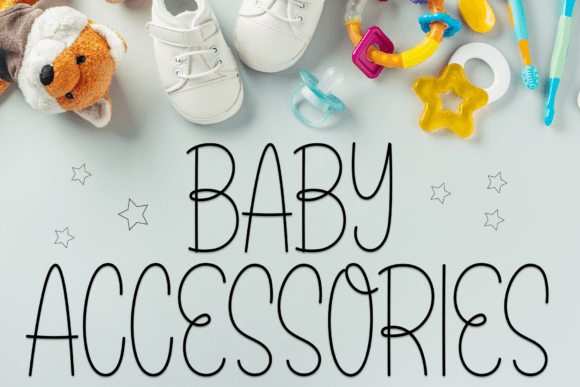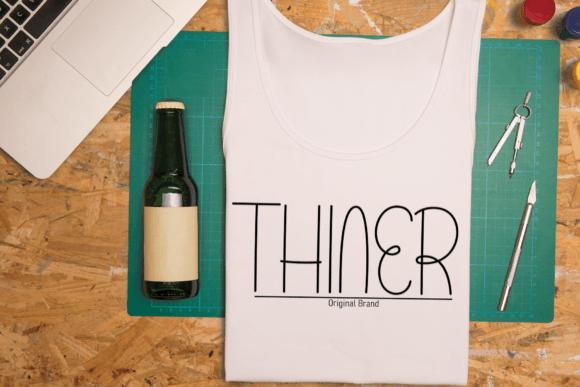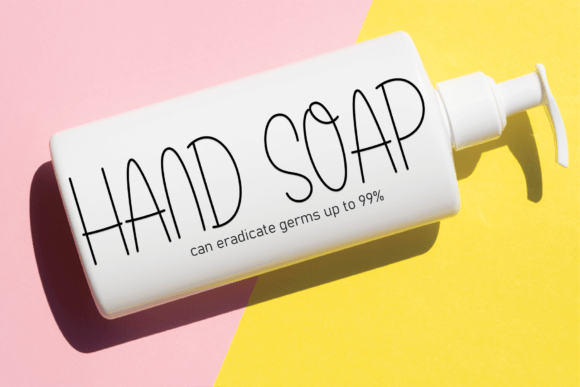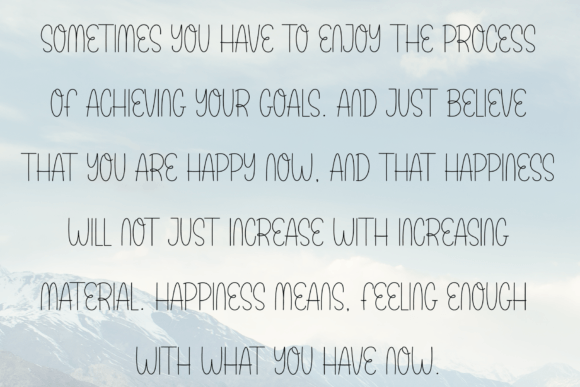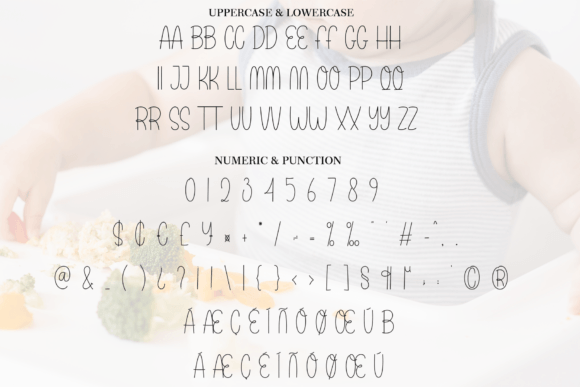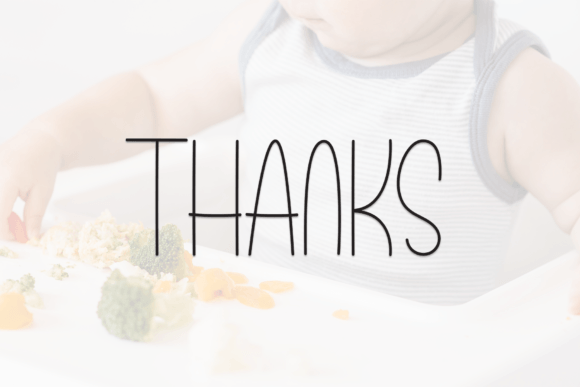
The Sweet Charm of Fat Baby Font: A Designer’s Delight
I still remember the time I was working on a wedding invitation project, and I just couldn’t find the right font to capture the sweet and playful vibe of the couple’s special day. That’s when I stumbled upon Fat Baby Font, and it instantly became my go-to choice. In this article, I’ll share my love for this beautiful handwritten font, its features, and how to make the most of it in your designs.
An Honest Review of Fat Baby Font
Fat Baby Font is a sweet and friendly handwritten font that’s perfect for adding a lovely touch to your designs. Here’s what I love about it:
- ✨ Fresh and casual feel that’s perfect for wedding invitations, cards, and more
- ✅ Easy to read, even in smaller sizes
- 💕 Beautifully crafted letters with a playful, handwritten touch
- 🎉 Works well with both digital and print designs
While Fat Baby Font is a wonderful choice, it’s not without its quirks. Here are a few things to keep in mind:
- 🤔 Some letters may appear a bit narrow or tall, which can affect the overall flow of your text
- ⚠️ Limited availability of stylistic alternates, which might limit your design options
Fat Baby Font was designed with love and care by a talented type designer who’s passionate about creating beautiful, handwritten fonts. The font’s sweet and friendly personality makes it perfect for a wide range of design projects, from wedding invitations to social media graphics.
| What is Fat Baby Font best used for? | Fat Baby Font is ideal for writing wedding invitations, cards, or any other design that might need a lovely, handwritten touch. |
| Does Fat Baby Font support OpenType features? | Yes, Fat Baby Font supports OpenType features, such as ligatures and stylistic alternates, which can add more personality to your text. |